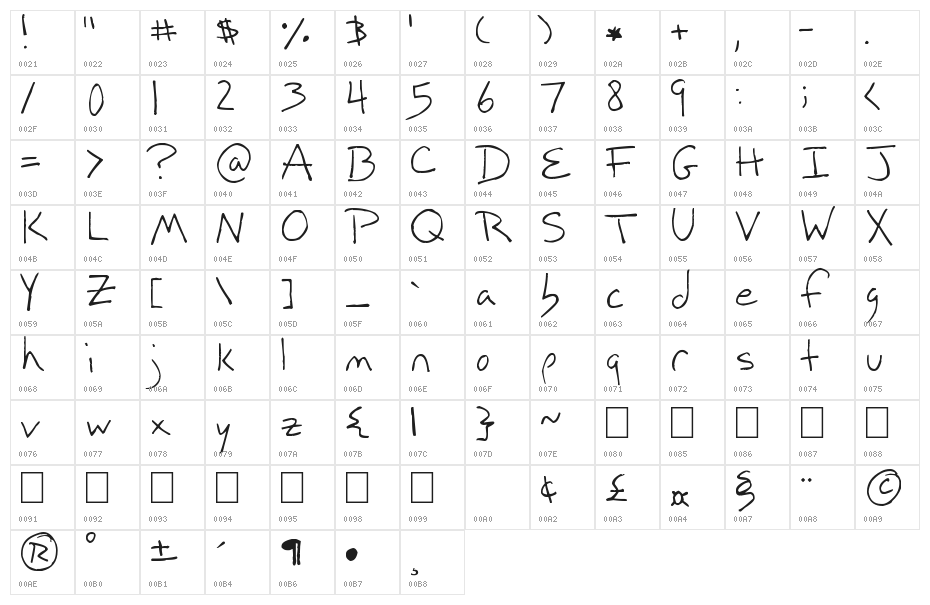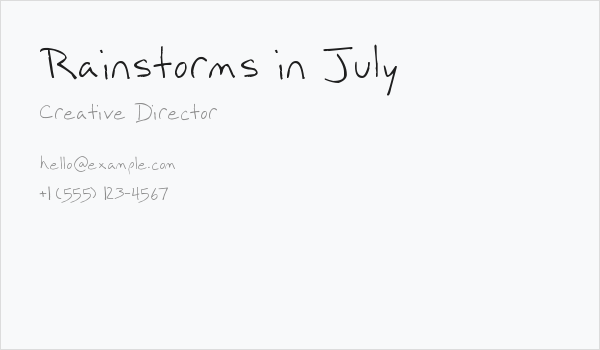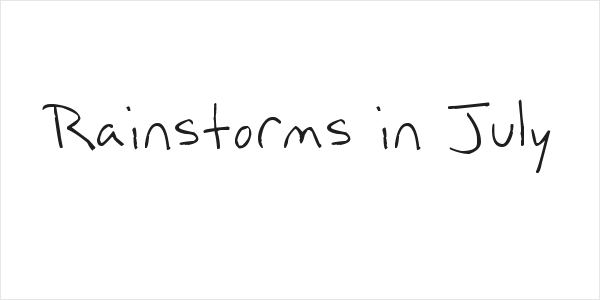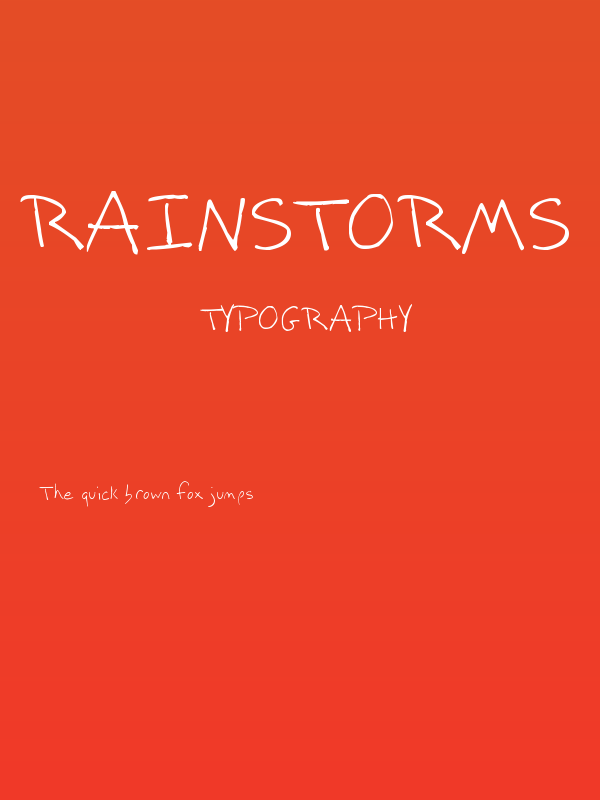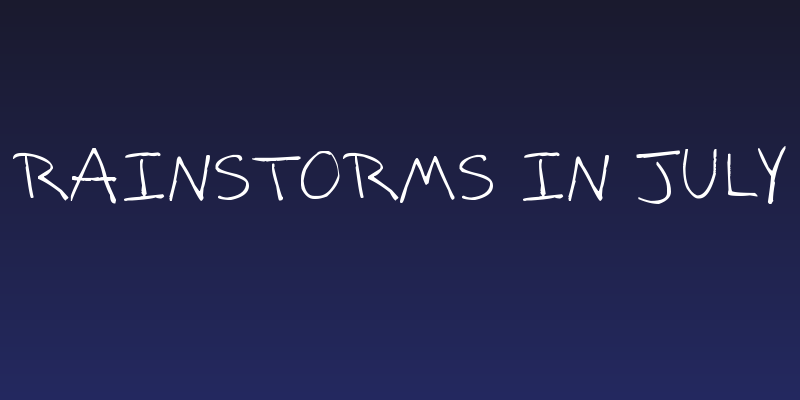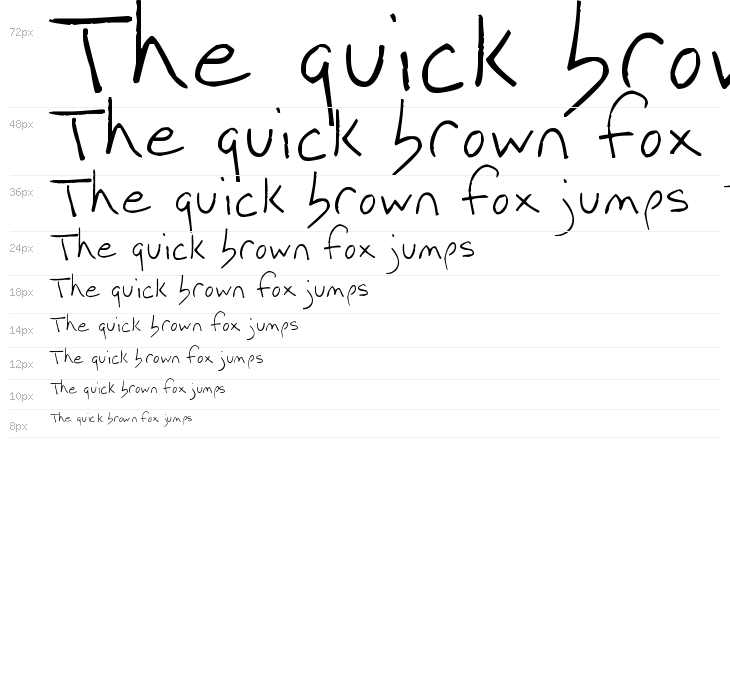
Rainstorms in July Font
Rainstorms in July Description
This font exhibits a playful and informal handwritten style, characterized by its irregular and dynamic strokes. The letters vary in size and slant, giving it a spontaneous and lively appearance. The uppercase letters are bold and slightly uneven, while the lowercase letters maintain a consistent flow with a casual flair. Numbers and special characters follow the same whimsical style, adding to the font's overall charm. The font's unique personality makes it stand out, perfect for projects that require a personal touch.
| Proposed Projects | Ideal for greeting cards, personal notes, children's books, and creative branding projects. |